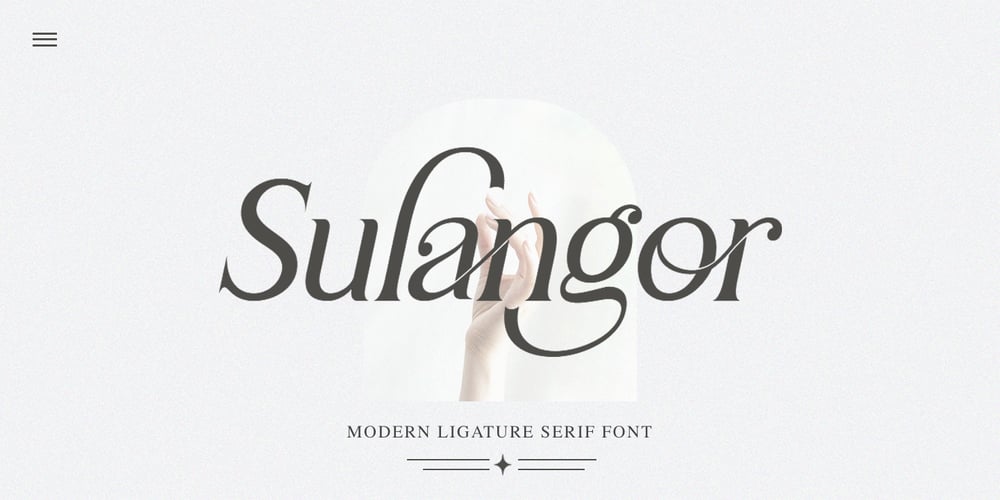
Sulangor Font Family was designed by Sulai Man and published by Mantype Studio. Sulangor contains 6 styles and family package options. Sulangor is a stylish and rich serif font with letters that seem to dance and twist harmoniously together to form unique and elegant typography designs. Add it confidently to your projects and you will love the results!Wide range of stylistic alternates and ligatures, allows versatile design options work perfectly for elegant branding, magazine design, logo design, headlines, posters, packaging, cards or your wedding invitation.Features:* Character set A-Z with special uppercase letters.* Ligatures.* Stylistic Alternates.* Numerals & Punctuation.* Multilingual Support.This font is encoded with Unicode PUA, which allows full access to all additional characters without having special design software. Mac users can use Font Book, and Windows users can use Character Map to view and copy one of the extra characters to paste into your favorite text editor / application. We highly recommend using a program that supports OpenType features and Glyphs panels such as Adobe Illustrator, Adobe Photoshop CC, Adobe InDesign, or CorelDraw, so you can see and access all Glyph variations.